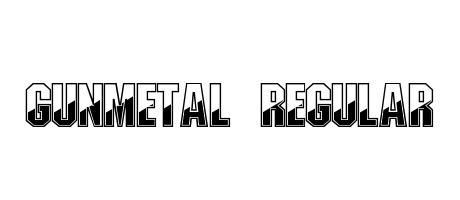
Gunmetal Regular
By Digital Graphic Labs
Gunmetal Regular: A font forged in the fires of industry, its bold, shadowed letters exude strength and grit. Each character is a mini-monolith, a testament to unwavering resolve. Perfect for titles demanding authority, it commands attention with a darkly stylish presence, hinting at power and resilience.